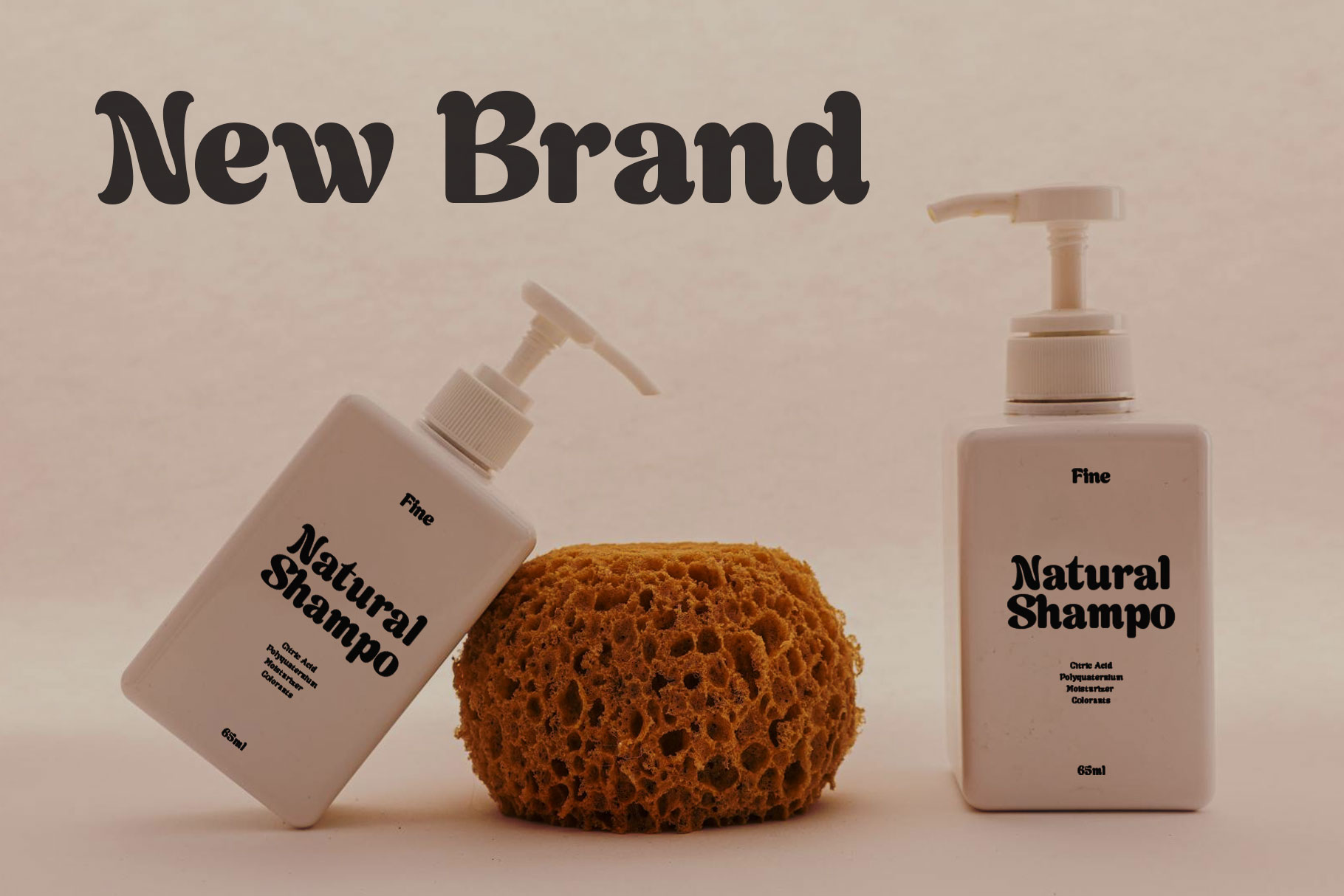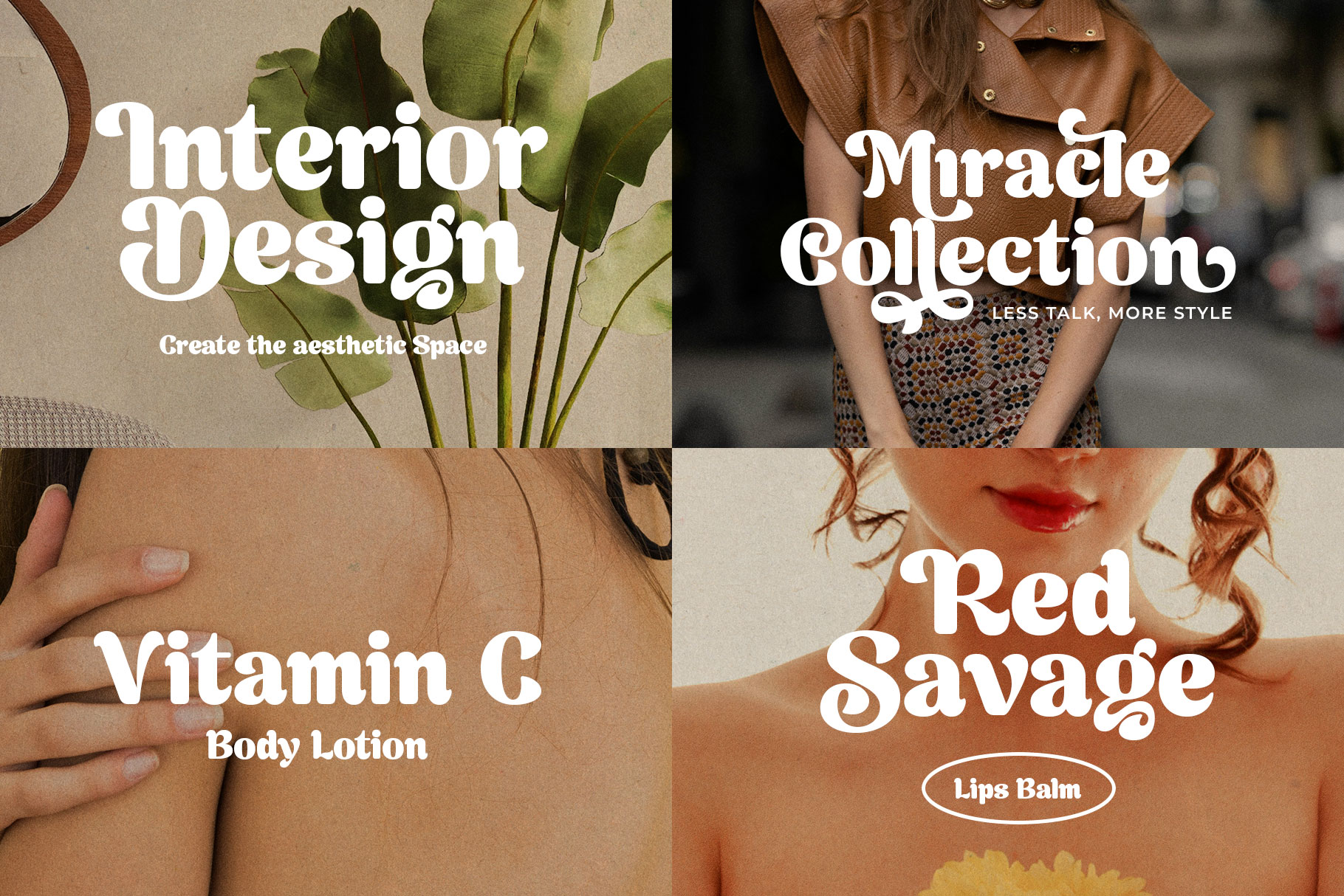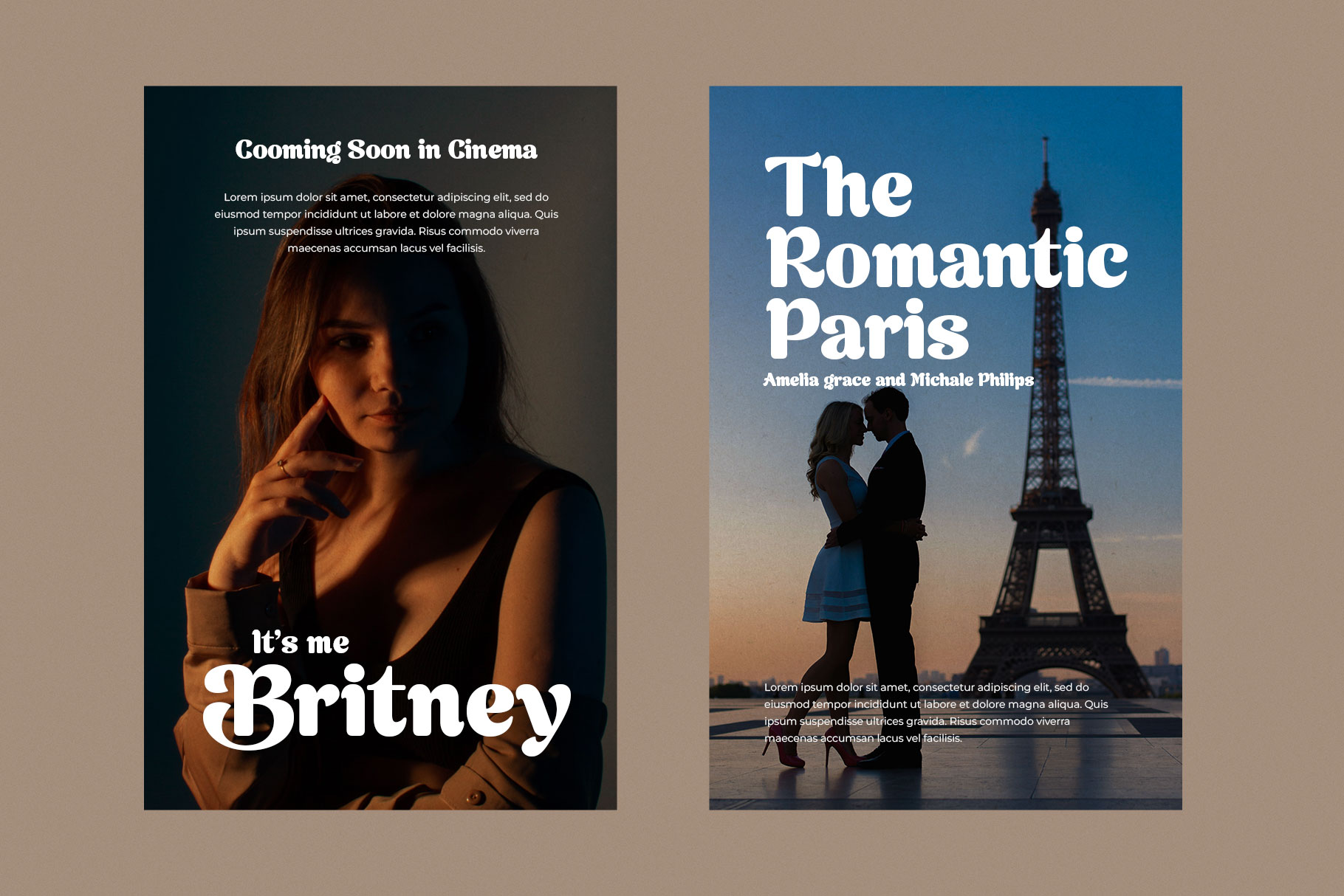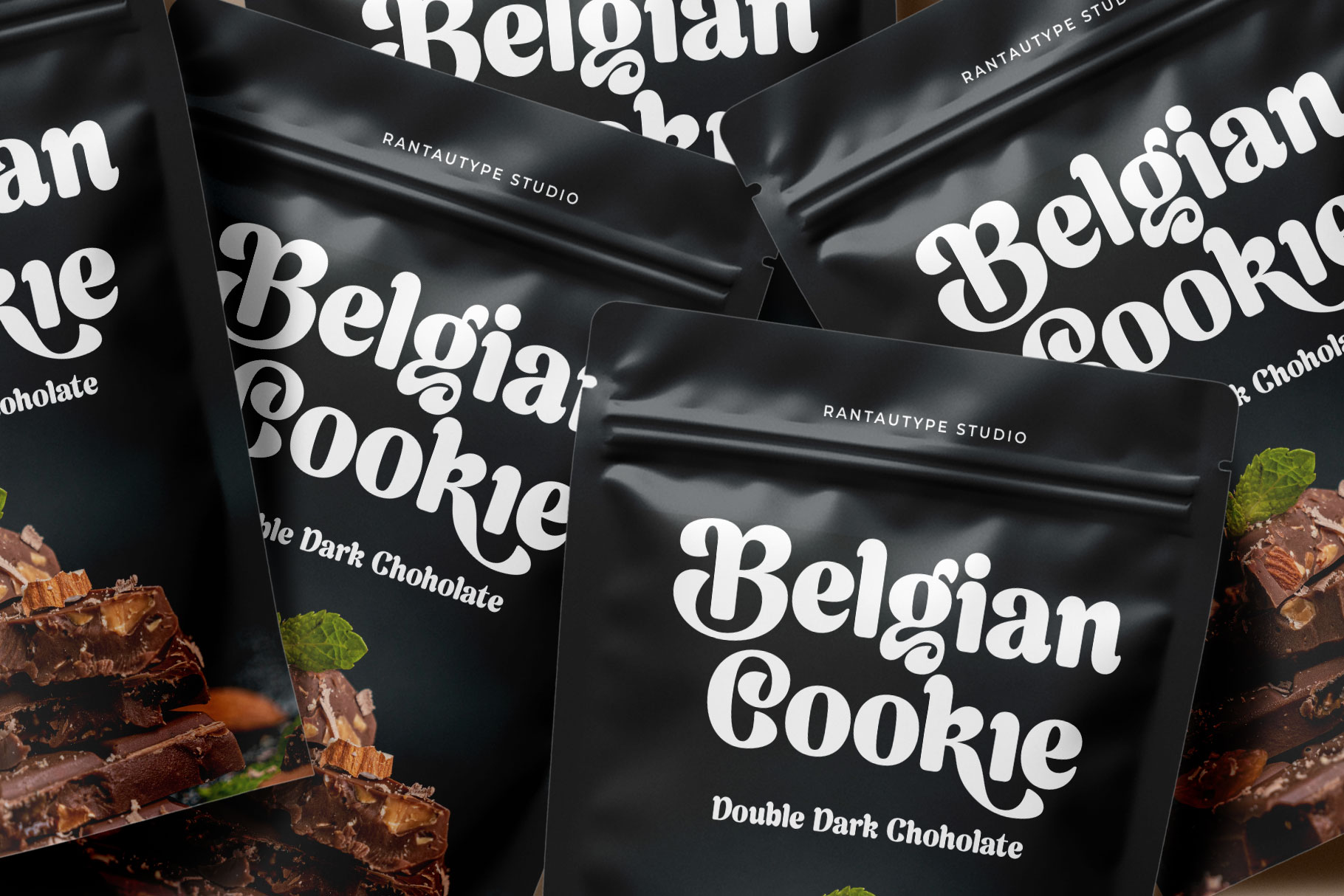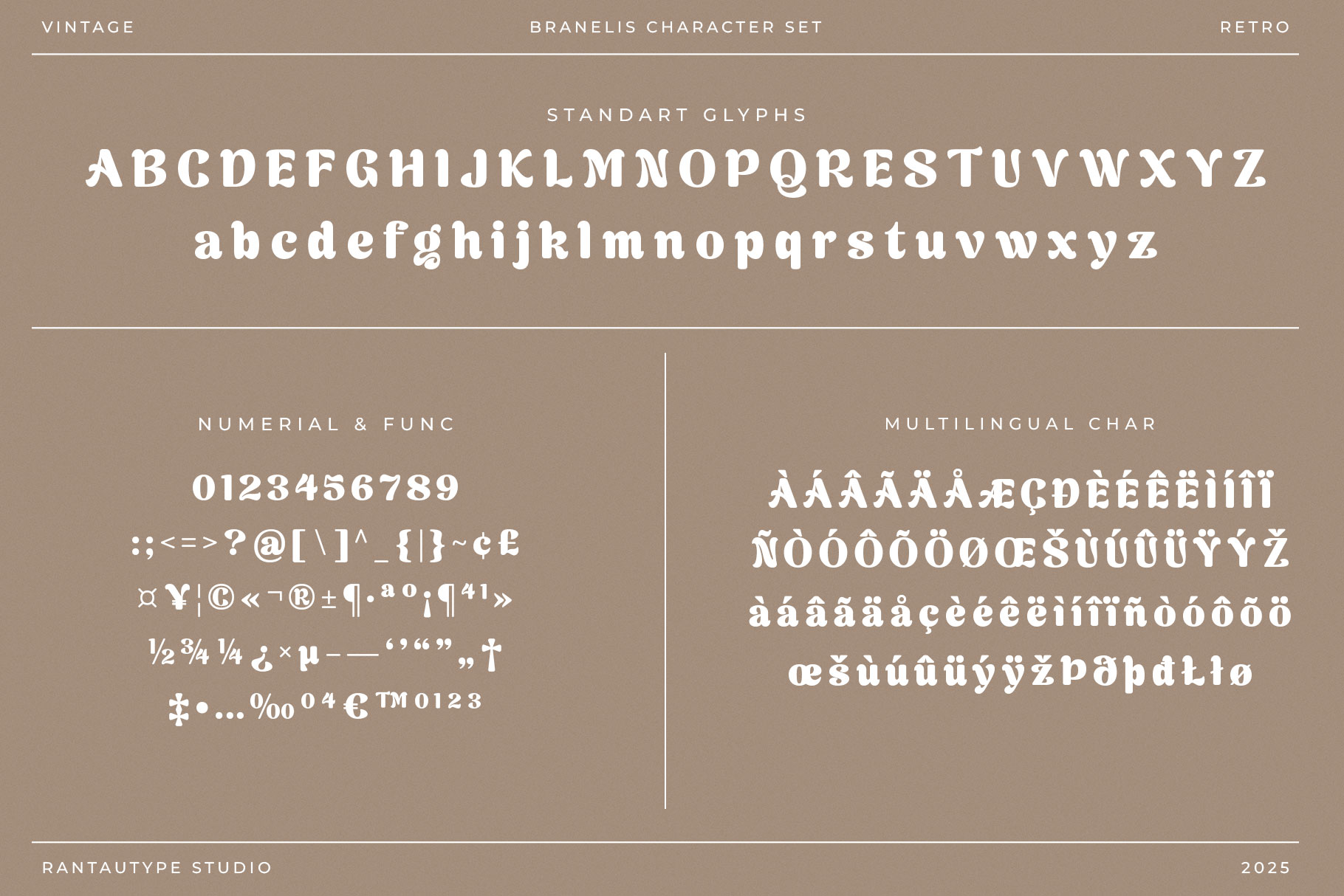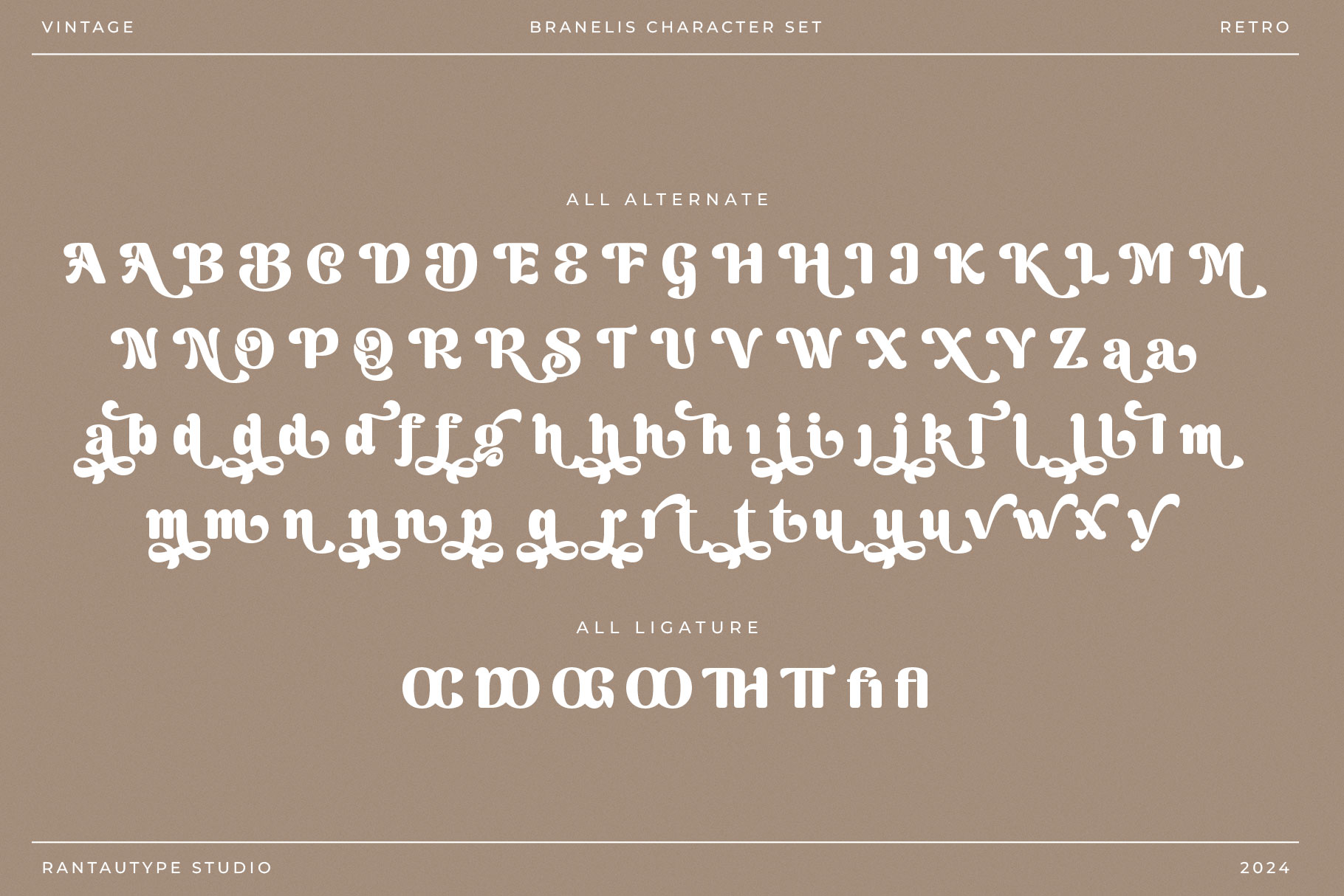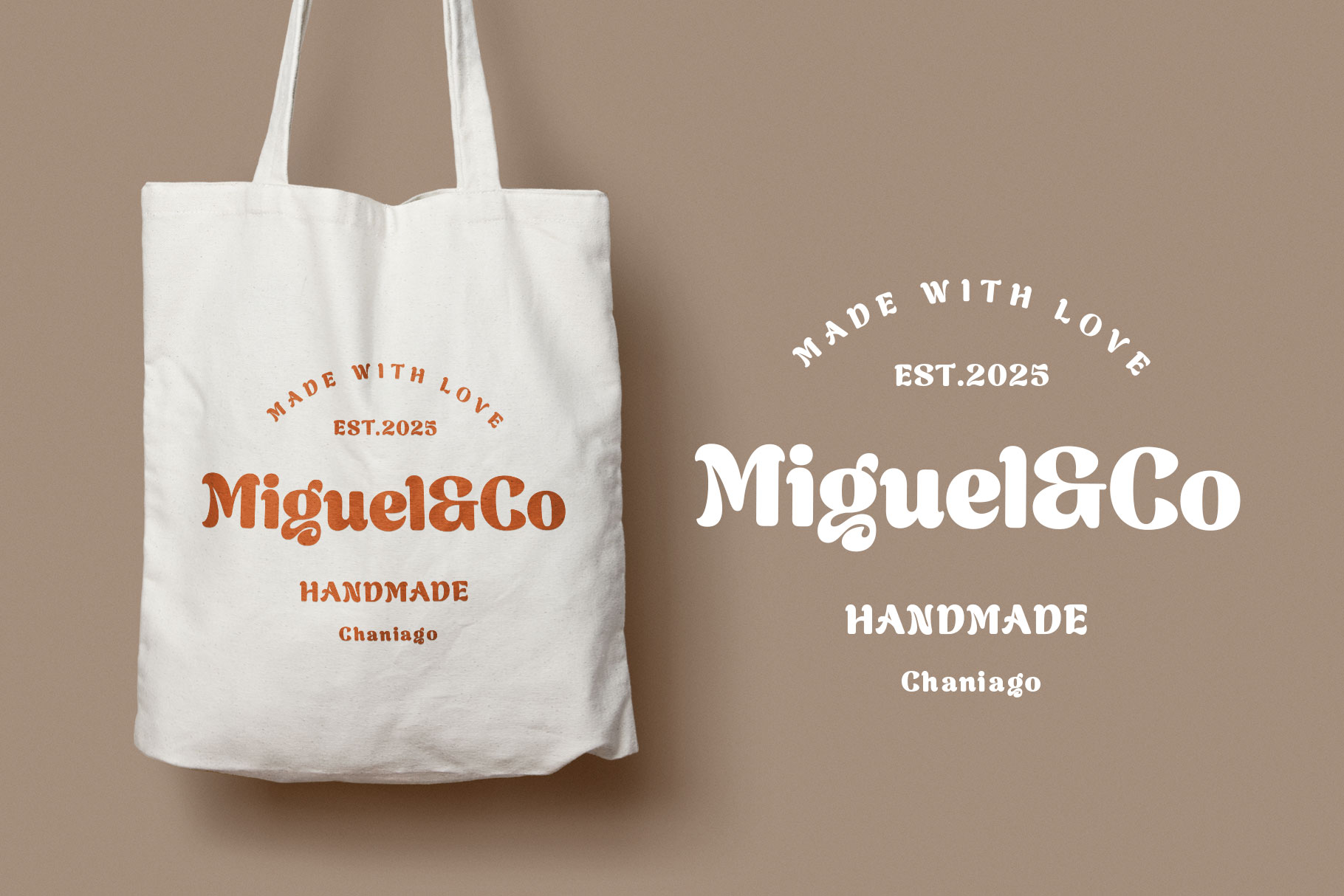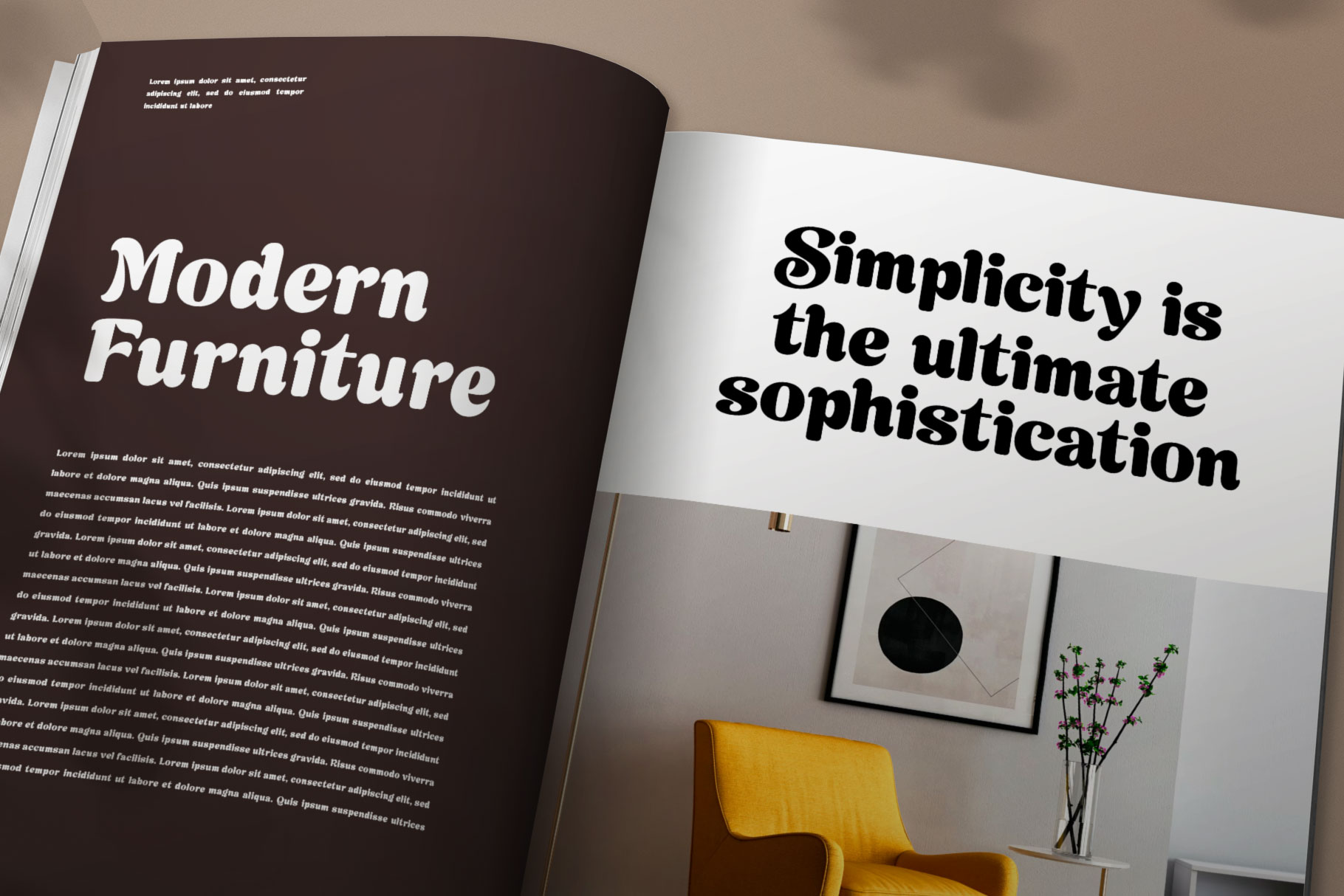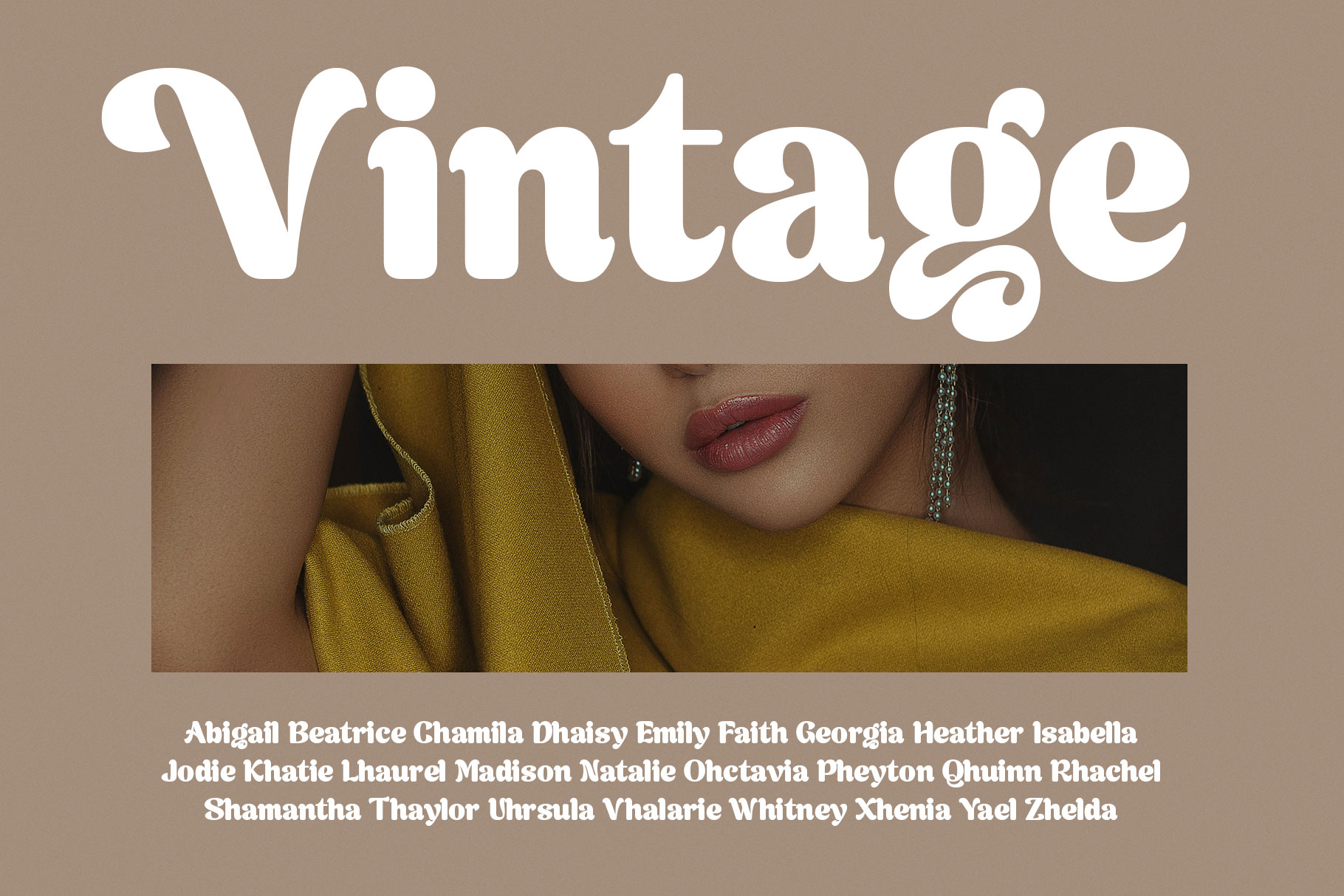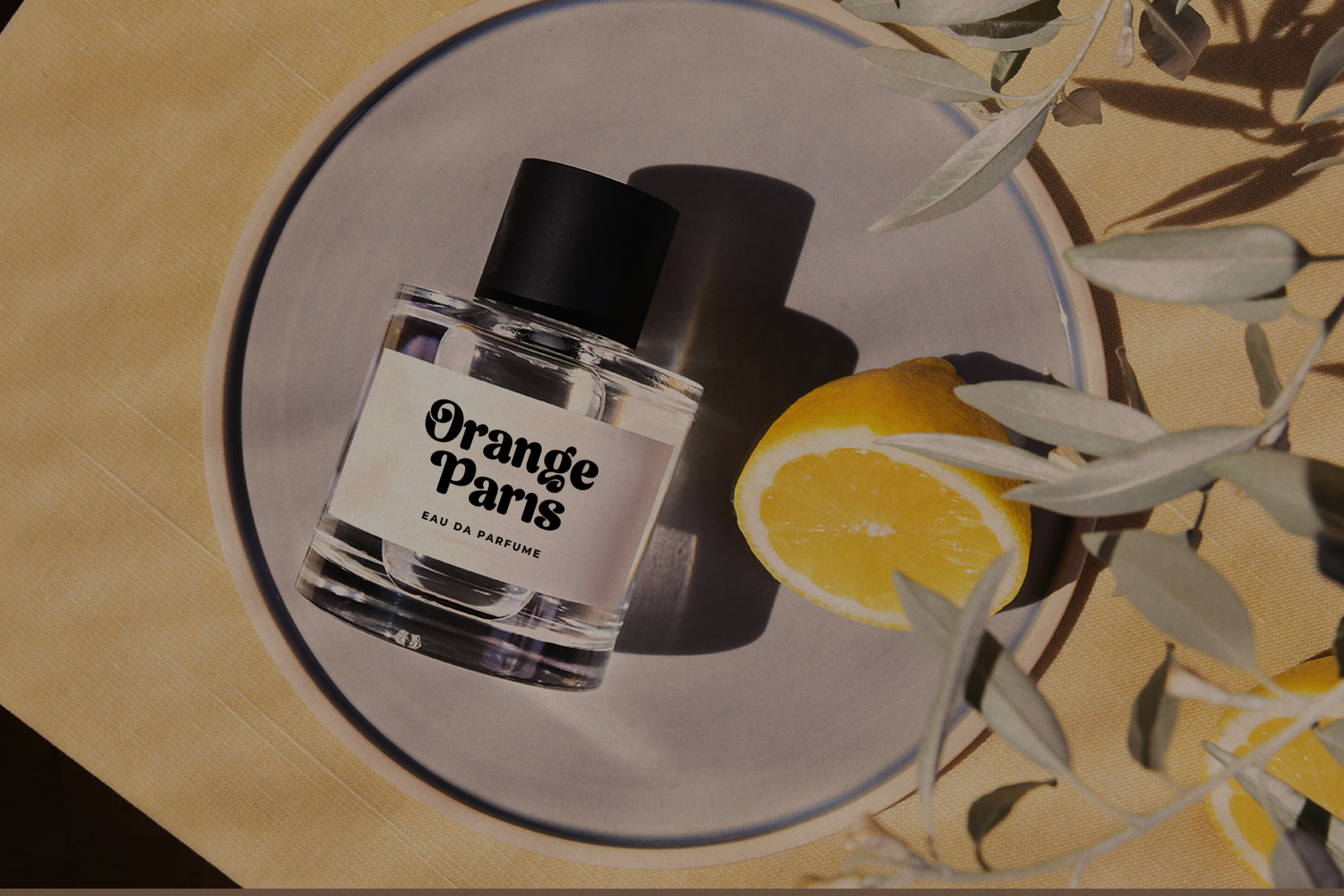
Branelis Retro Vintage Font
Branelis is typeface that blends characteristics of classic fonts with nostalgic design elements from past decades, particularly from the 1940s to the 1980s. Branelis come with stylish alternate to make your project stand out.
Branelis is a perfectly choice for any creative endeavor, chic, lifestyle design such as logotype, advertisements, watermark on photography, stationery, branding project, display and magazine, invitation, corporate brand, product design, label, business project and many other project with elegant touch.